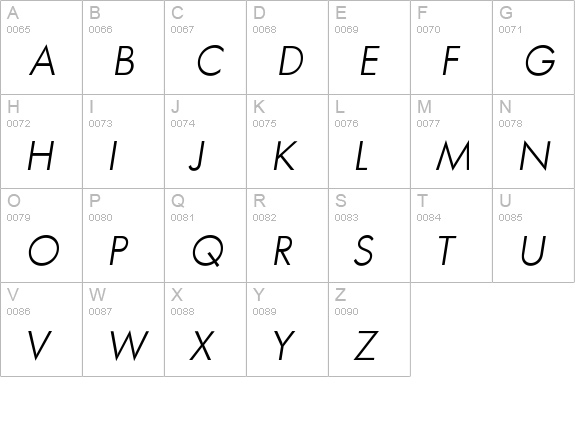
Limerick-LightIta Font Details
Limerick-LightIta font is a sleek and elegant typeface that exudes sophistication and modernity. Its slender lines and graceful curves make it perfect for adding a touch of refinement to any design project. The font's light weight gives it a delicate and airy appearance, making it ideal for conveying a sense of elegance and sophistication. What's even better is that Limerick-LightIta font is available for free download at FontsMarket.com, making it accessible to anyone looking to elevate their design work with a touch of class. Whether you're working on a branding project, a website design, or any other creative endeavor, Limerick-LightIta font is sure to bring a sense of style and sophistication to your work. Download it today and start adding a touch of elegance to your designs!